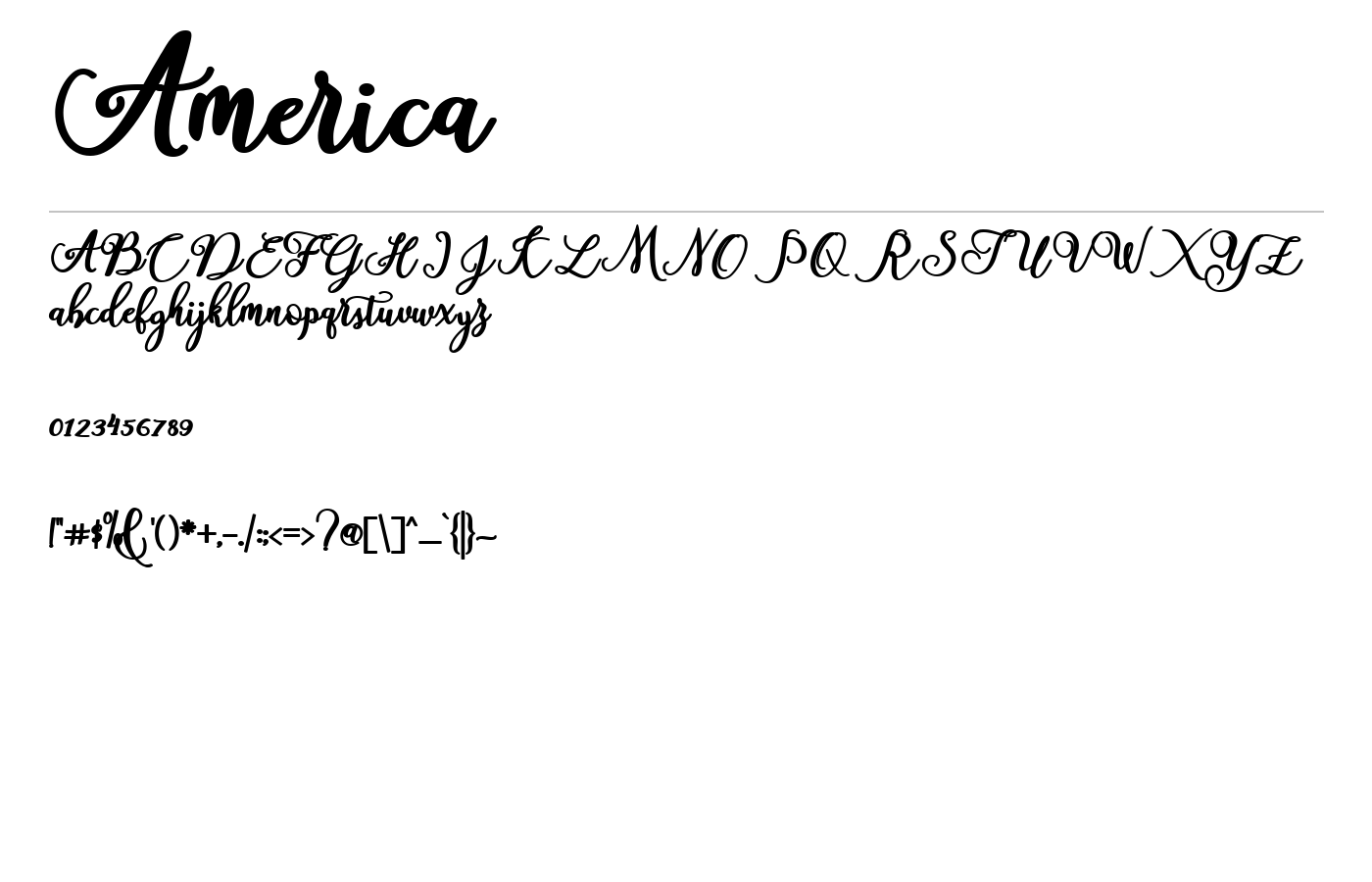
America Font is a decorative script typeface with elegant, flowing letterforms that combine smooth curves and subtle flourishes. Its bold weight and tightly connected strokes give it a confident yet graceful personality, making it ideal for sophisticated branding, invitations, and headlines where a stylish, handcrafted feel is desired. This font works best in design contexts that aim to evoke a sense of charm, warmth, and classic beauty.
America Font
About America Font
| Font family | America Font |
| Designer | Muhammad Rizal ( MrLetters) |